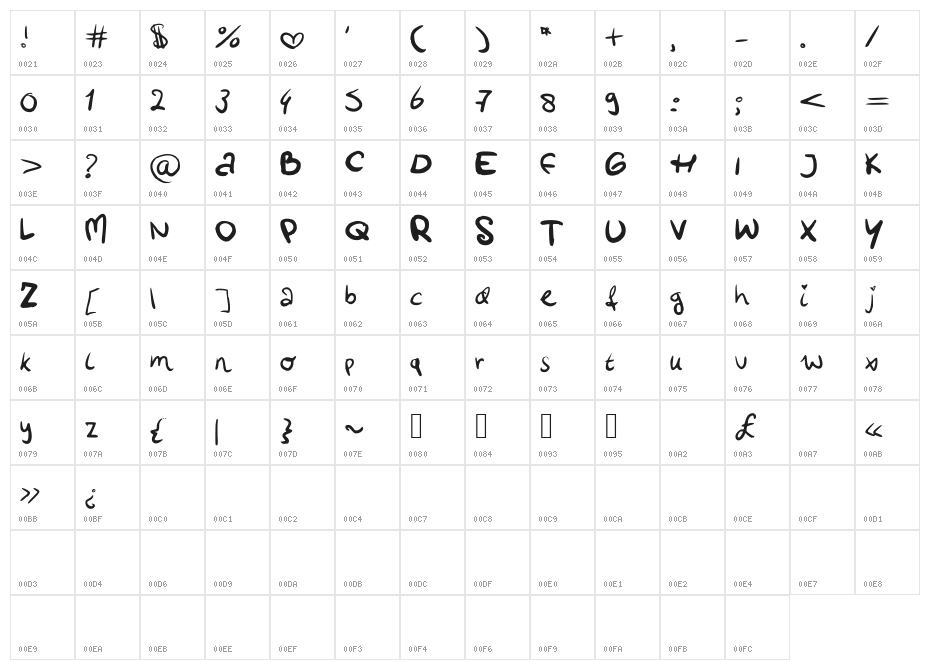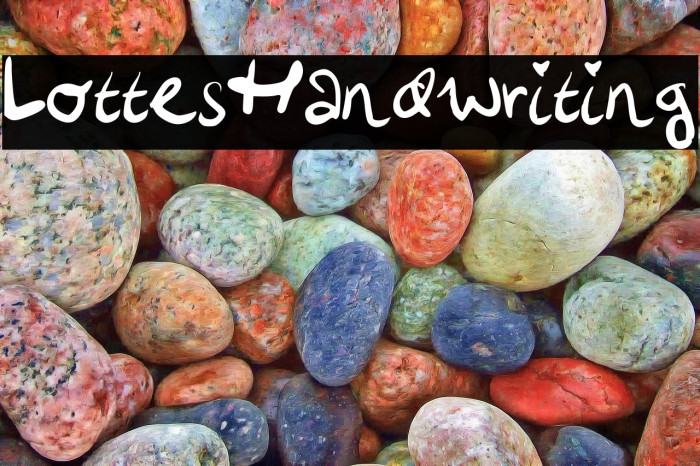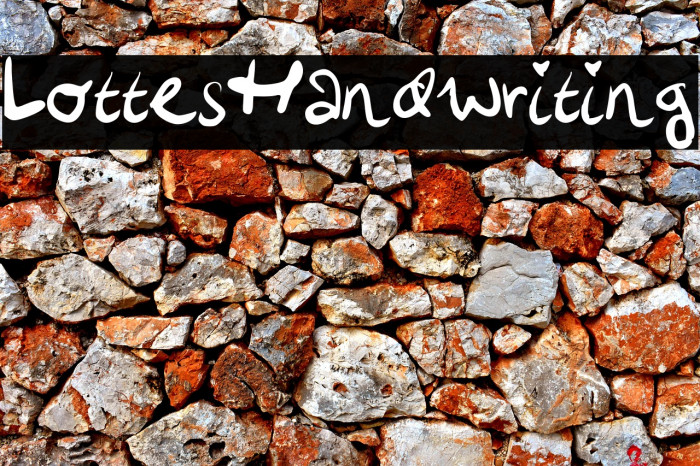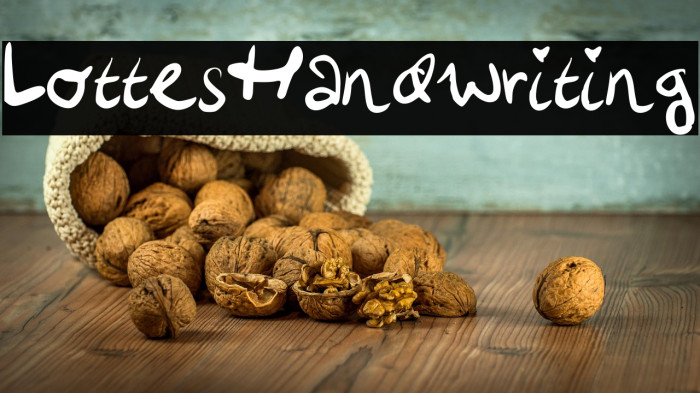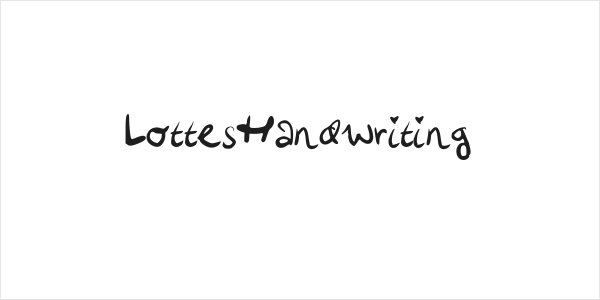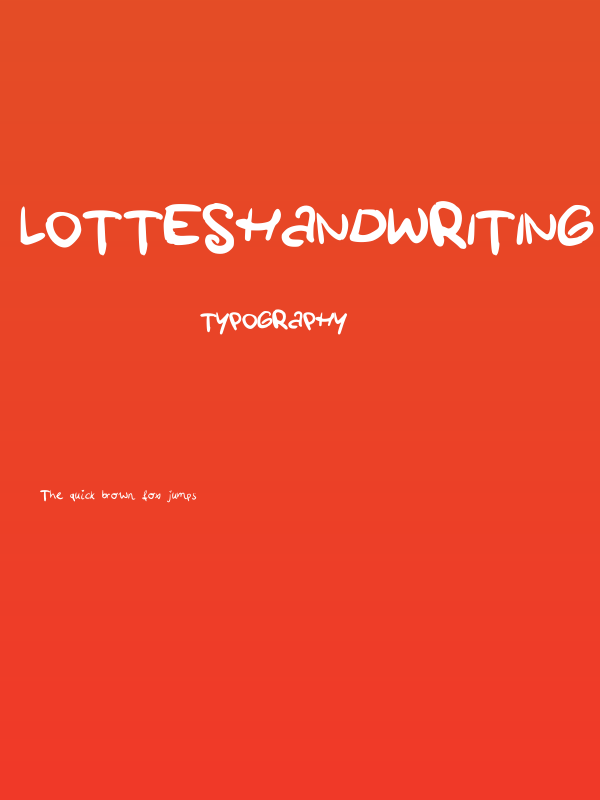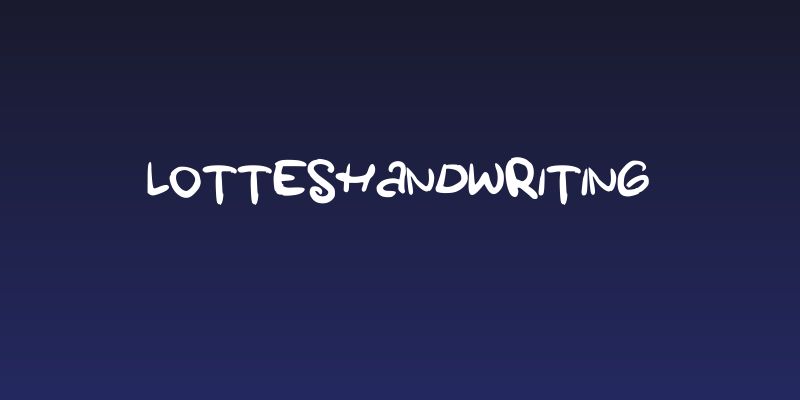
LottesHandwriting Font
LottesHandwriting Description
A playful and casual handwritten font with a personal touch, featuring irregular strokes and whimsical details.
| Use Case | Informal text, Personal projects |
| Proposed Projects | Greeting cards, personal notes, informal invitations. |